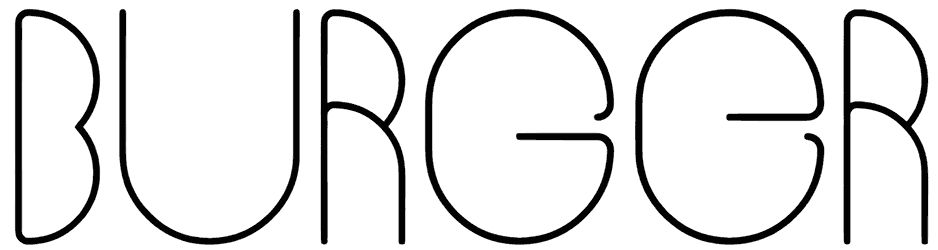
Burger Font
Burger is a neon font with a happy and lively look that can be a good endpoint for all your searches for choosing the best font. This thin font is an exceptional combination of a geometric foundation with script font details that gives any design a logical yet friendly feel.
The completely warm character of Burger, along with its handmade elegance, has made it work well in various projects such as food industry logo design, children’s products, and restaurant advertising posters.